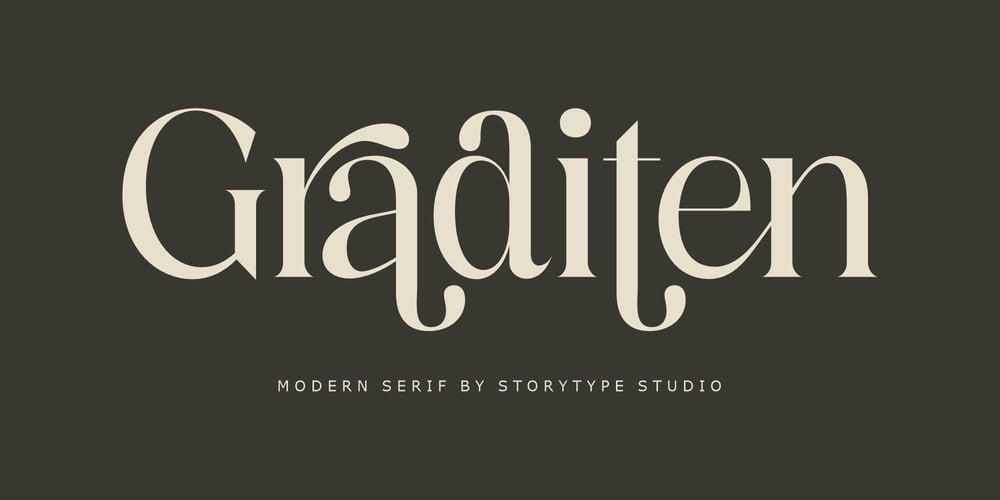
Graditen
Graditen Font Family was designed by Heru Utama Putra and published by Letterena Studios. Graditen contains 2 styles and family package options. Graditen is a modern and classic serif font with a unique style and fancy look.This typeface is perfect for an elegant & luxury logo, book or movie title design, fashion brand, magazine, clothes, lettering, quotes, and so much more.